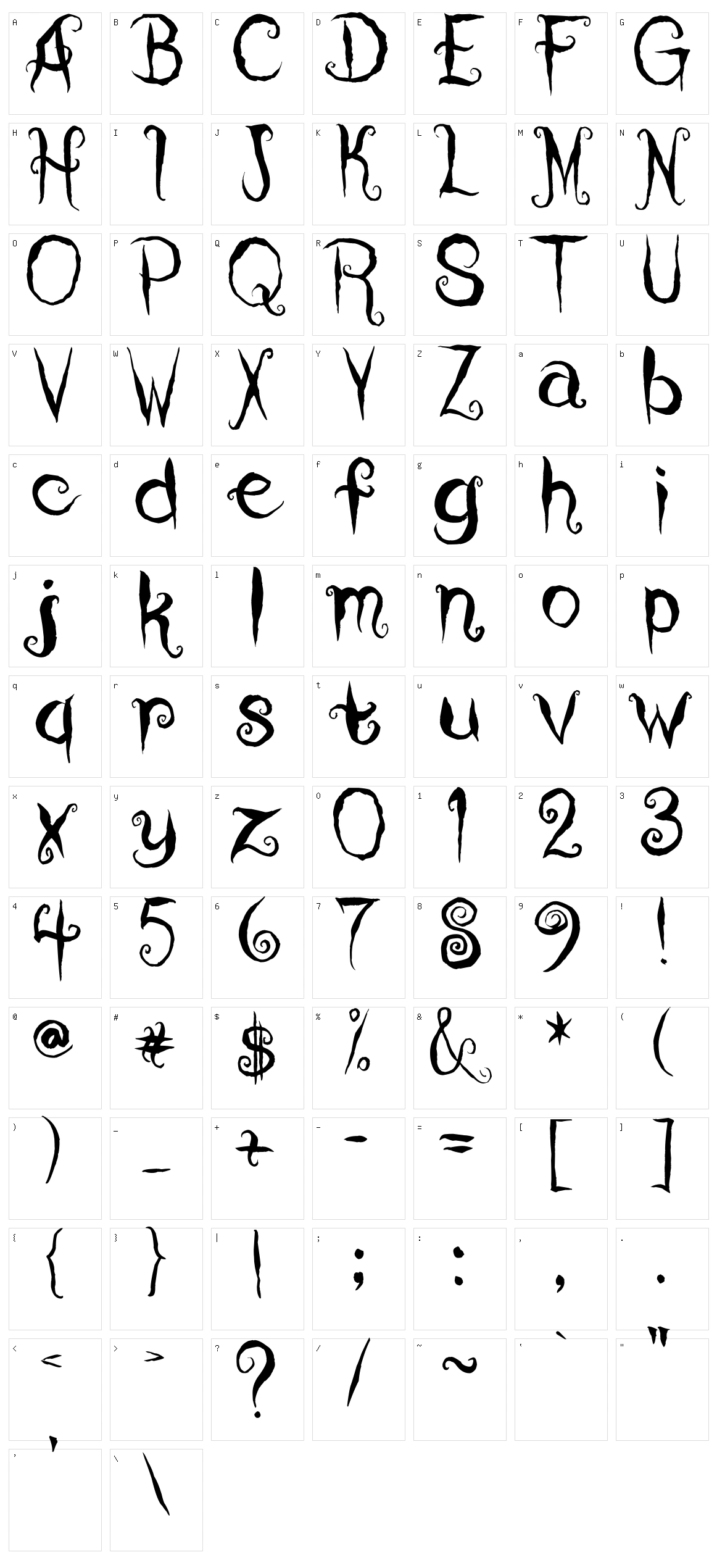
Coraline's Cat Font by Chad Savage
Created 2016, hand-lettered.
This font is intended for specialty and graphic uses. It will look just awful if used in a paragraph format.